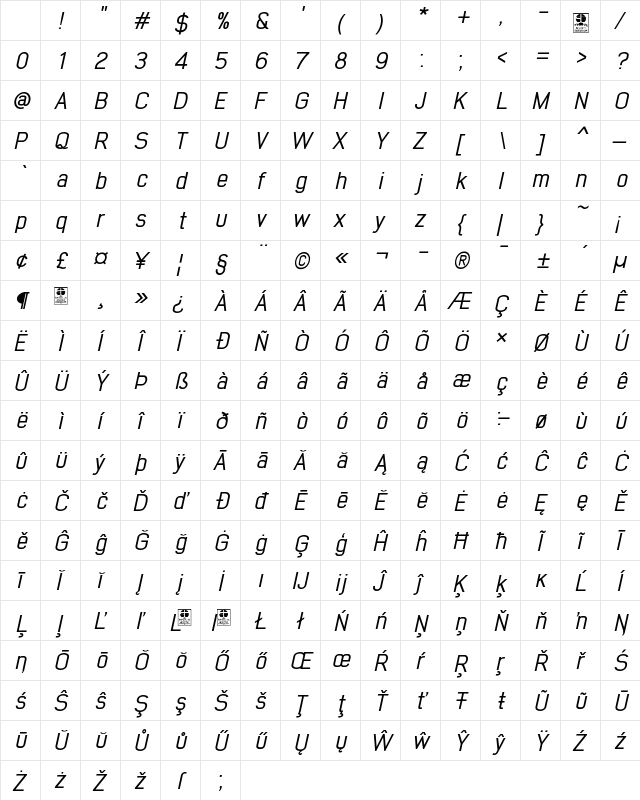
Early Times Demo is a composed and adaptable typeface that performs quietly and consistently across a wide range of design contexts. The slanted form adds forward momentum and visual energy.
Pro Tip: Use Early Times Demo for emphasis, pull quotes, and subheadings where its slanted energy can add rhythm to the layout.